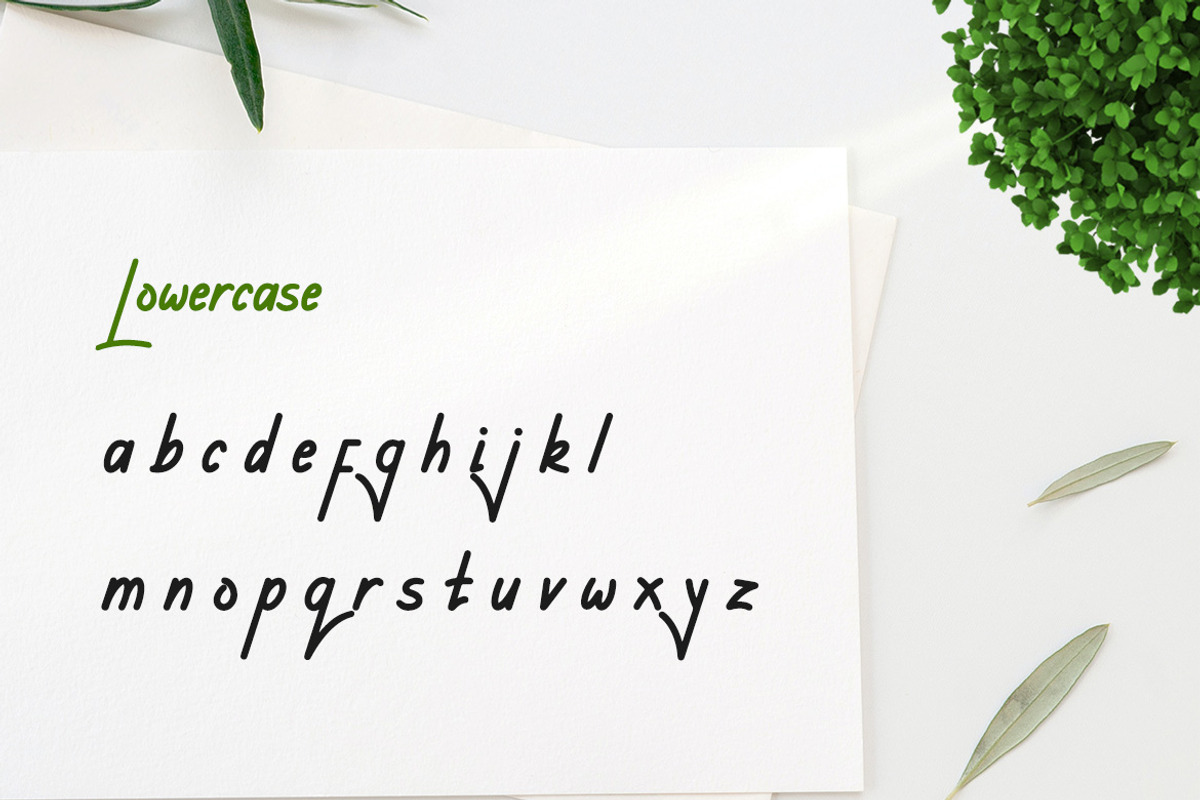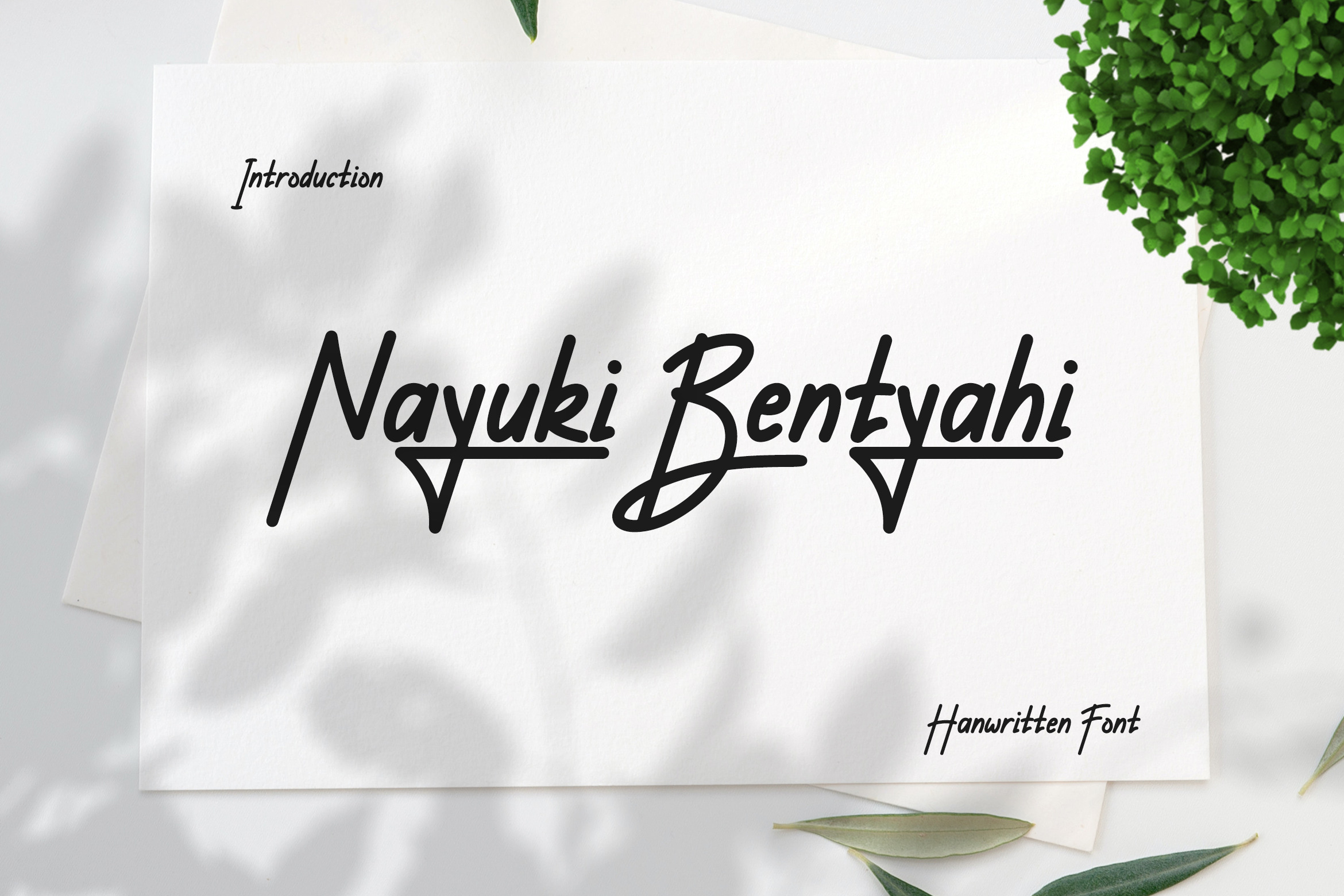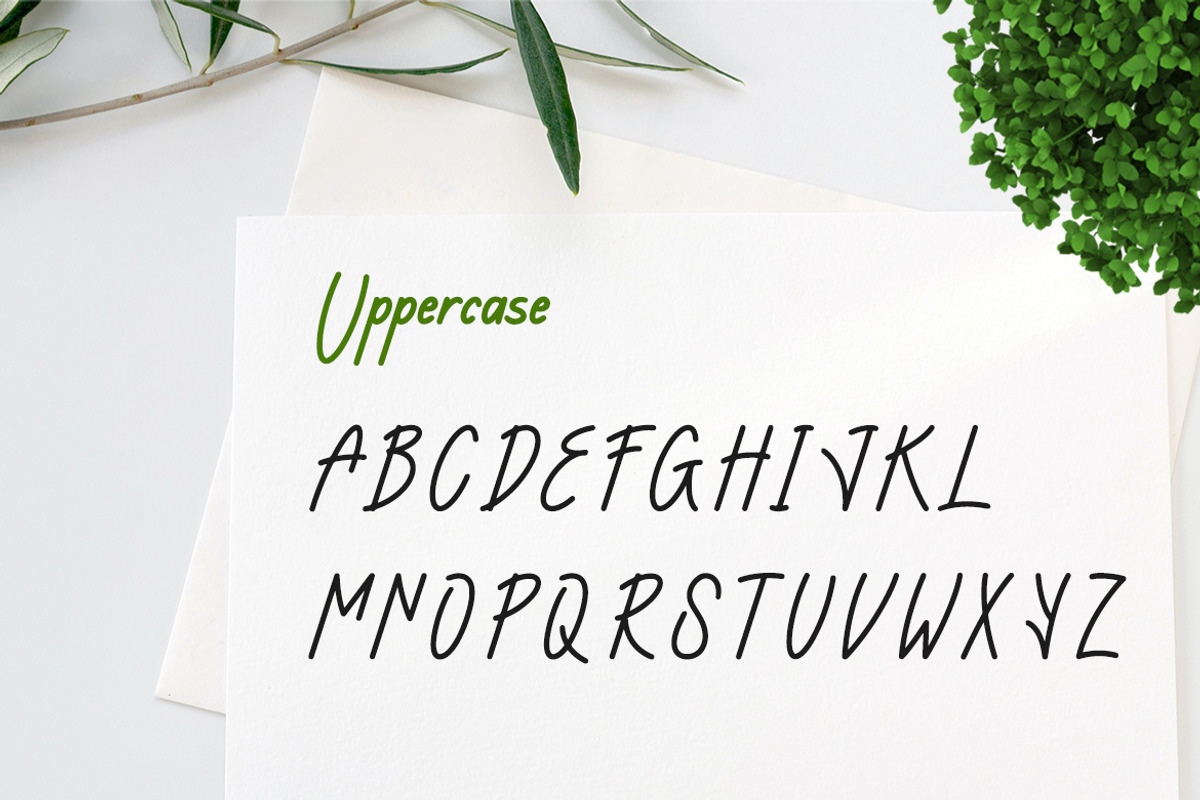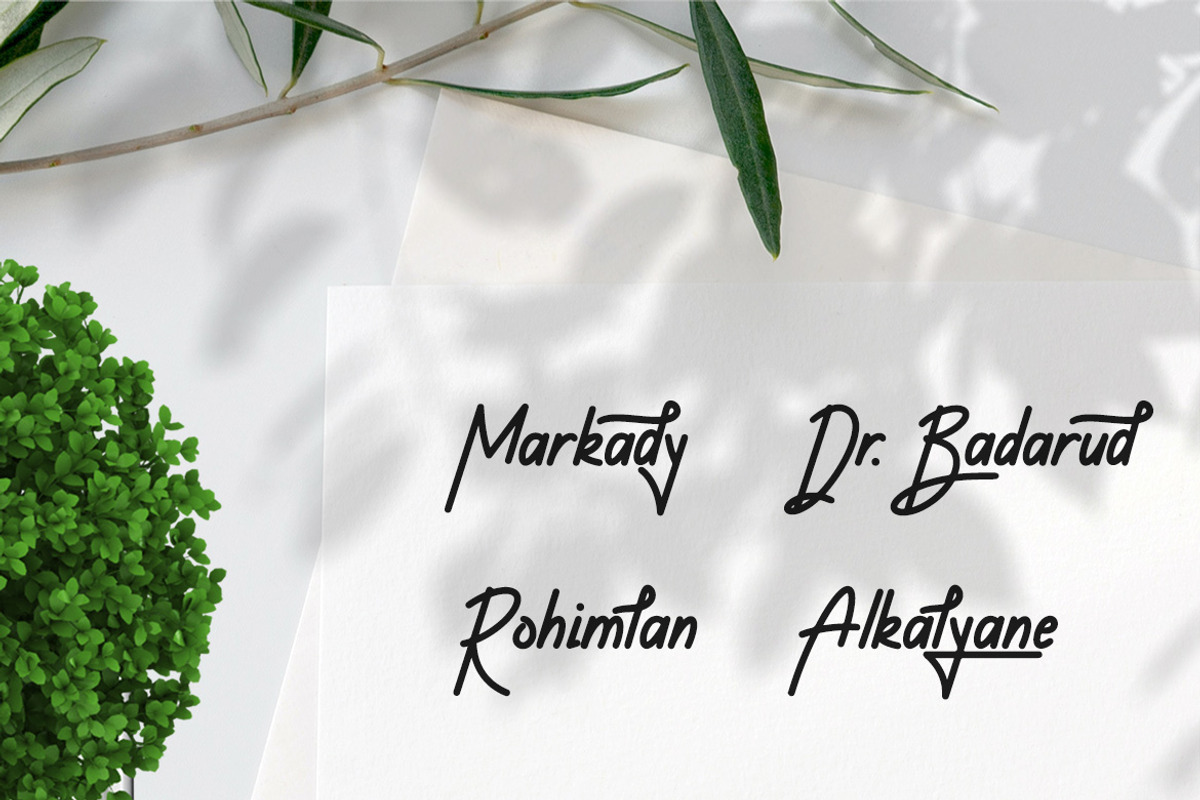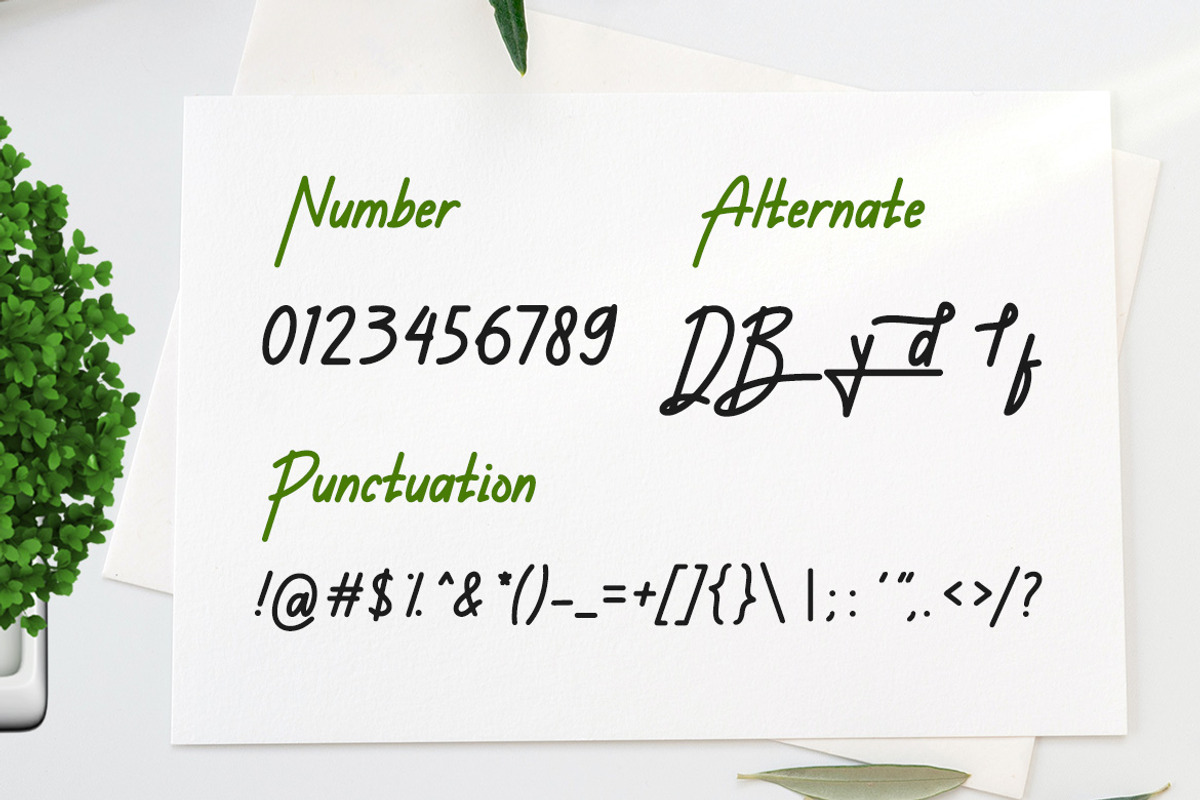
Nayuki Bentyahi - Handwritten Font
Nayuki Bentyahi is a unique display typeface perfect for titles, large text, branding, logotypes & graphic design purposes such as posters, pamphlets, and advertisements. This letter font can be a great choice for creating amazing logos, promotional content, and marketing presentations that can bring uniqueness and freshness at its best.
Alternate